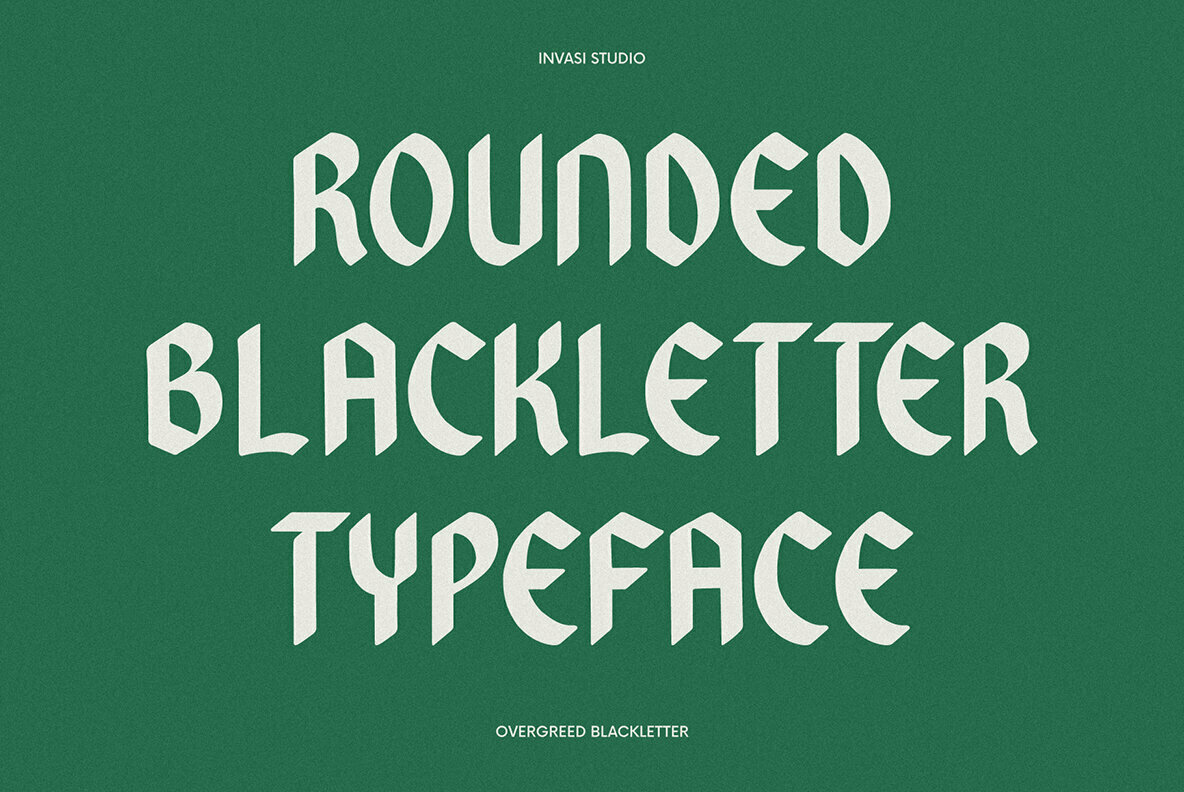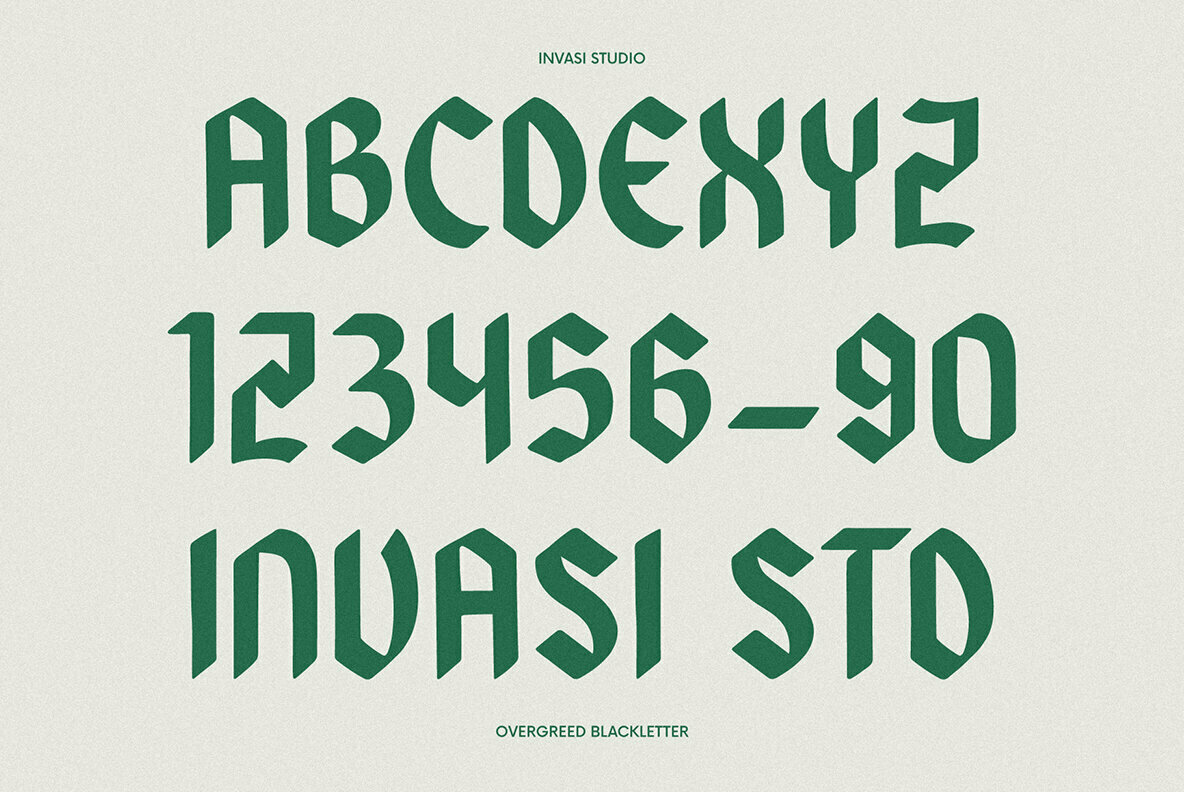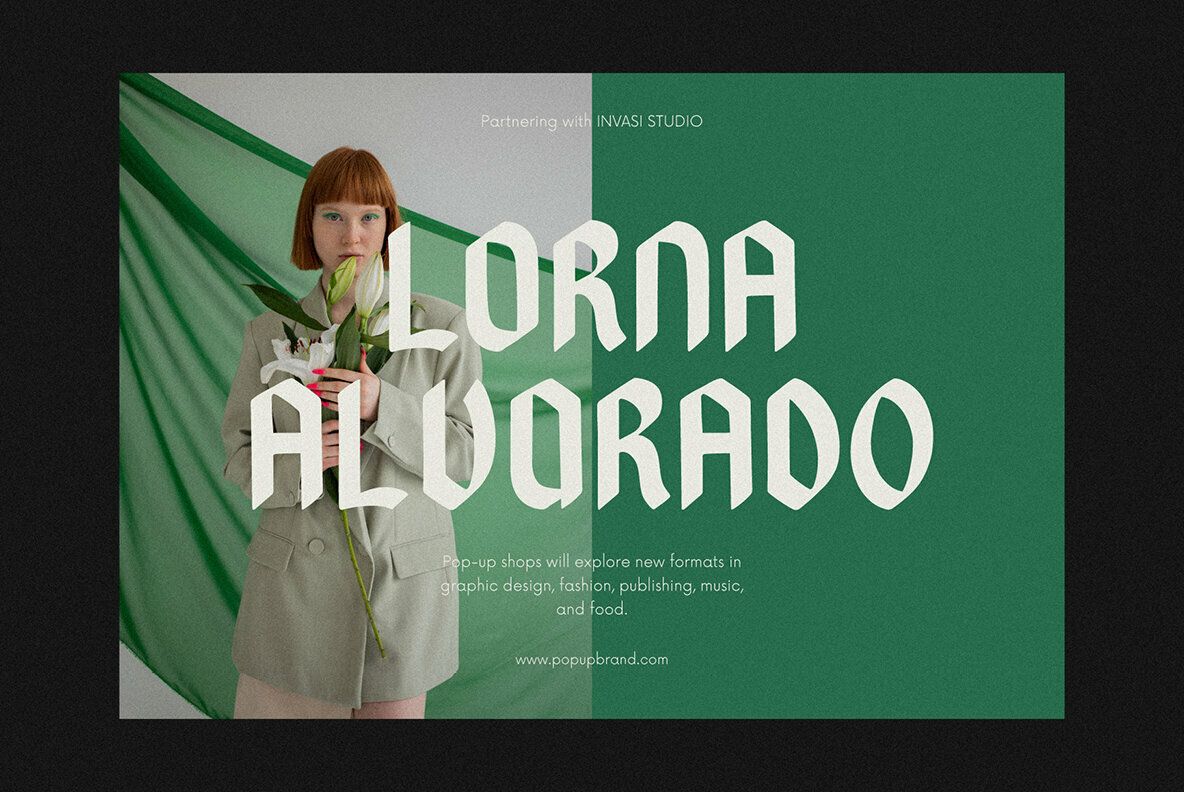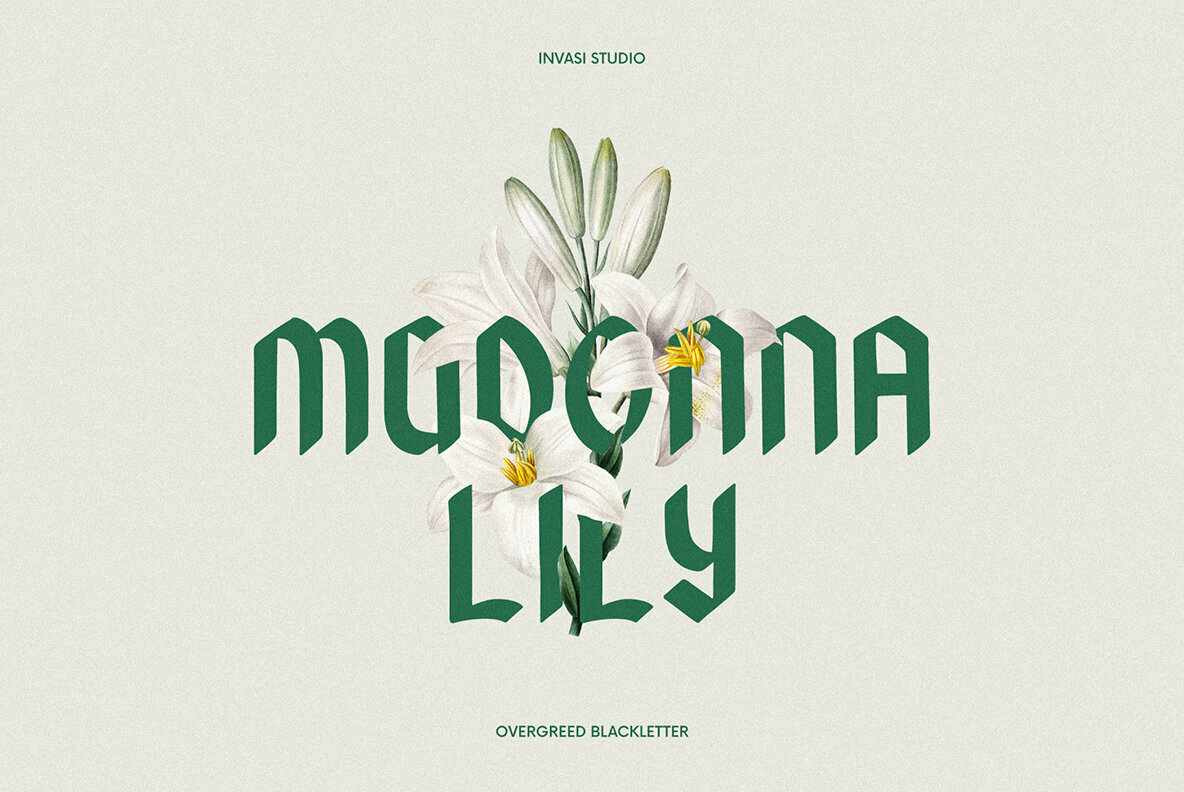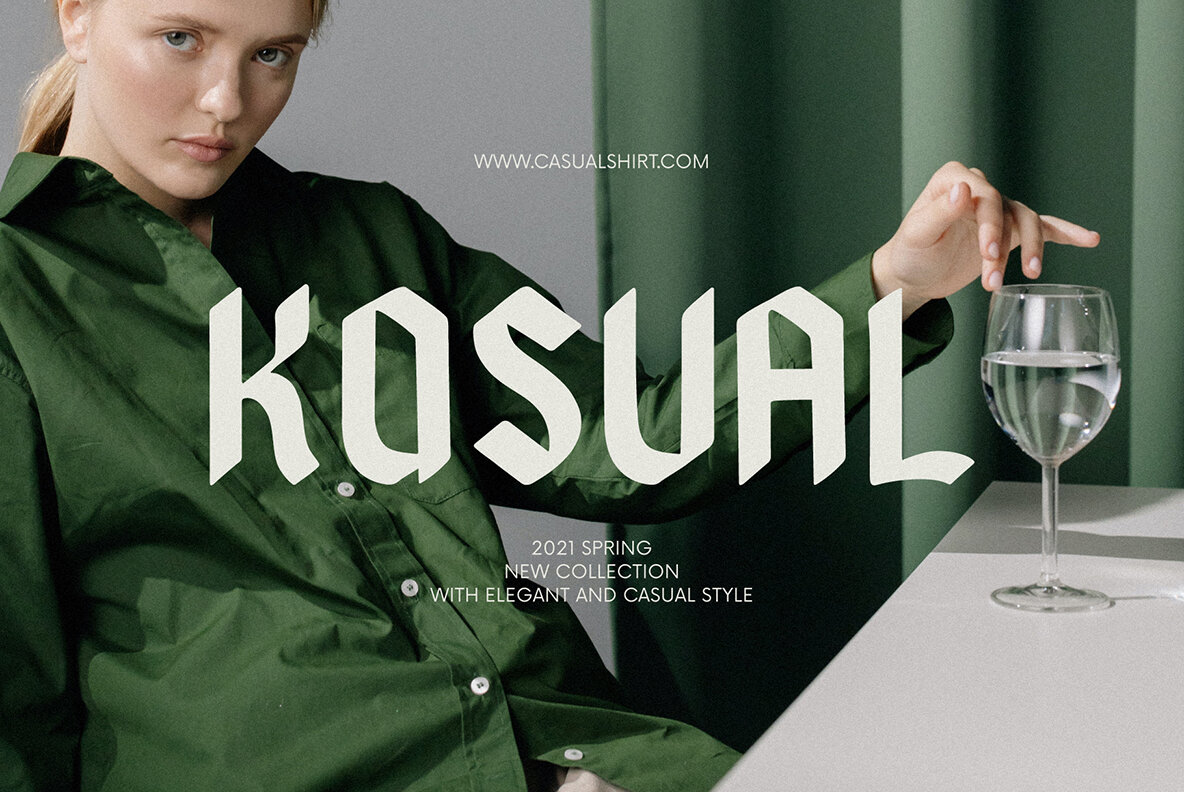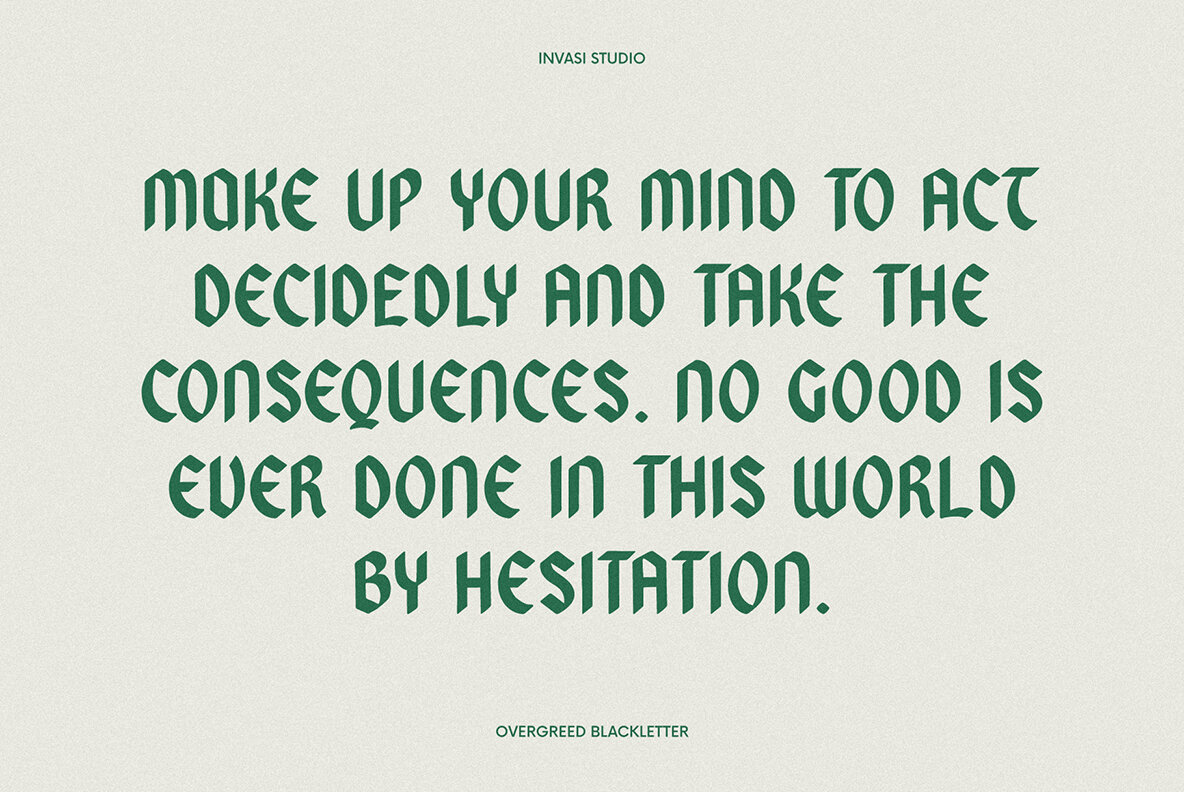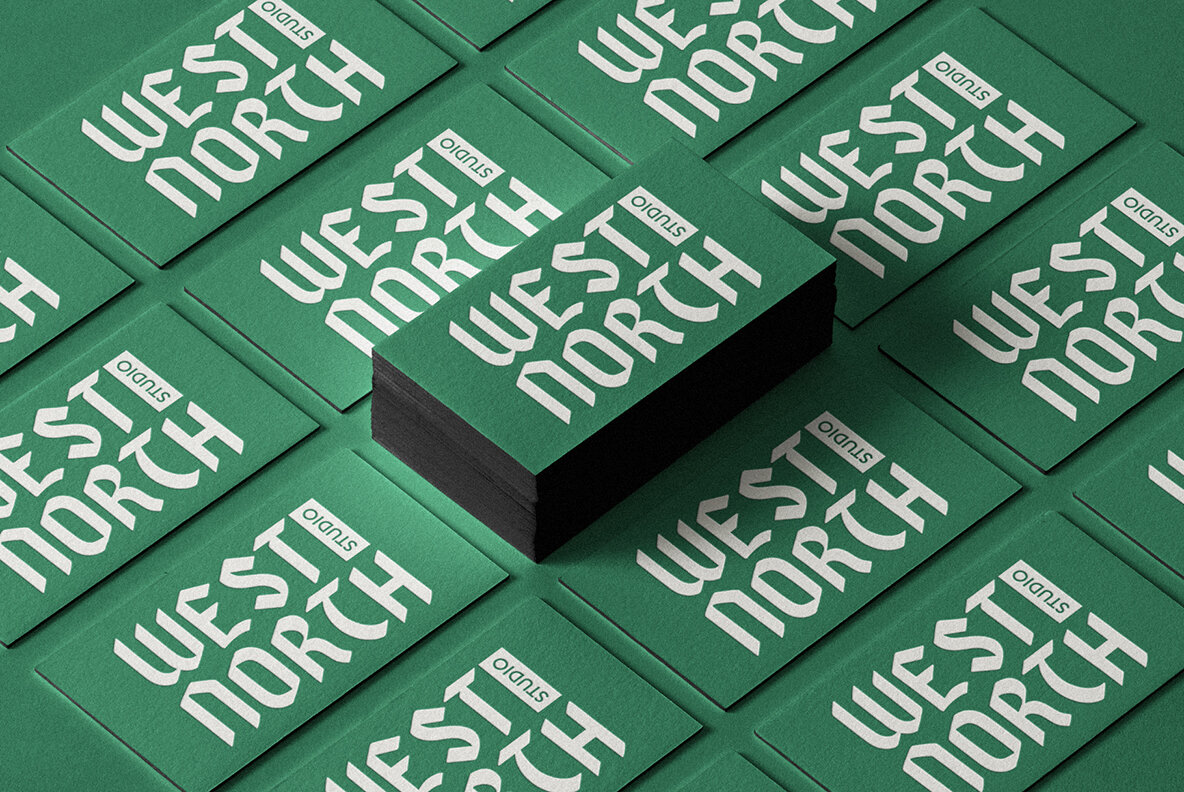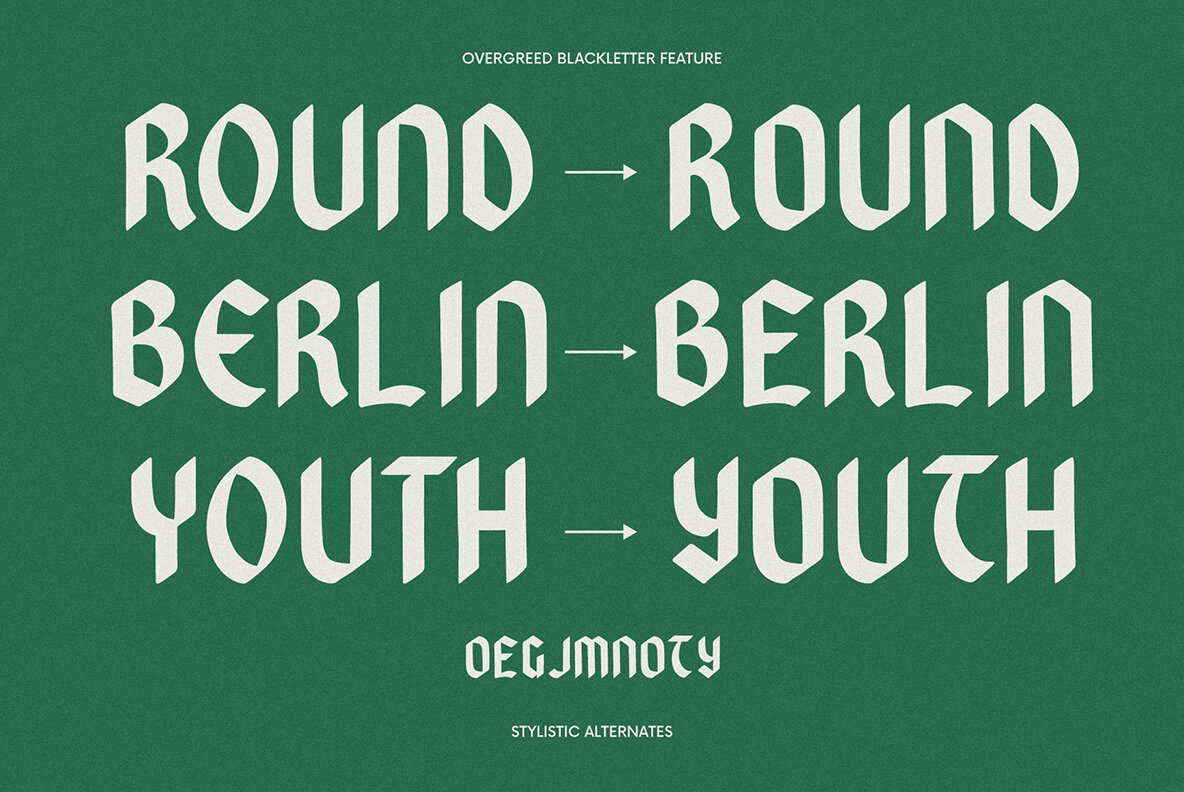
Overgreed Font
Overgreed Regular
Overgreed is a modern blackletter font with a touch rounded style. With an elegant modern style, it adds a bold touch to your projects and will inspire you to create something unique and modern. Besides that, this font is also equipped with alternative characters and multi-language support.
Overgreed Font is ideal for headings, flyers, greeting cards, product packaging, book covers, printed quotes, logotype, apparel design, and album covers.